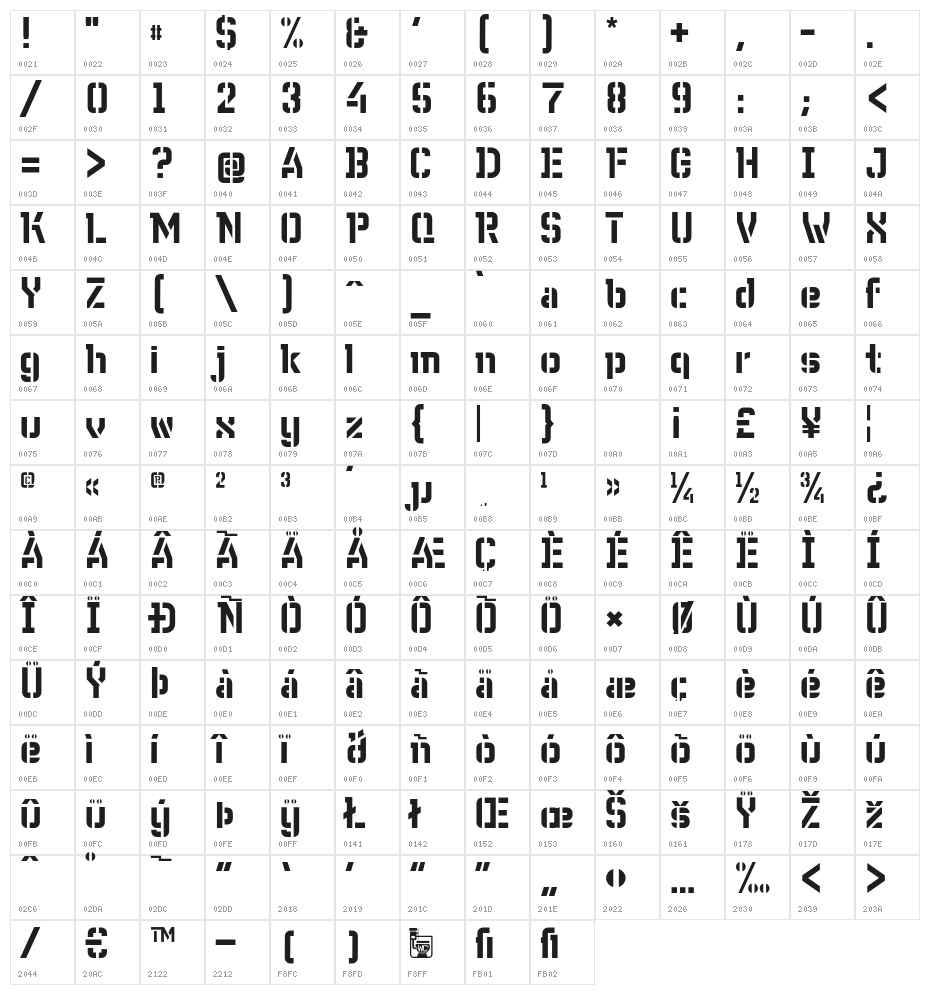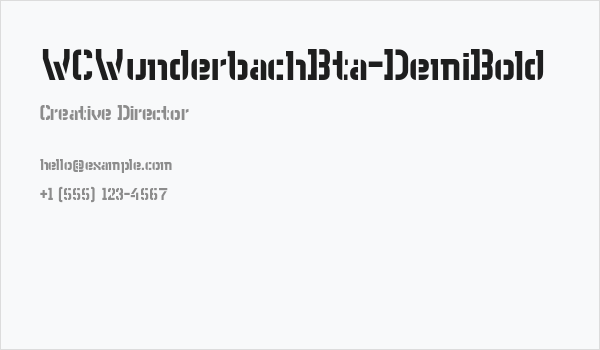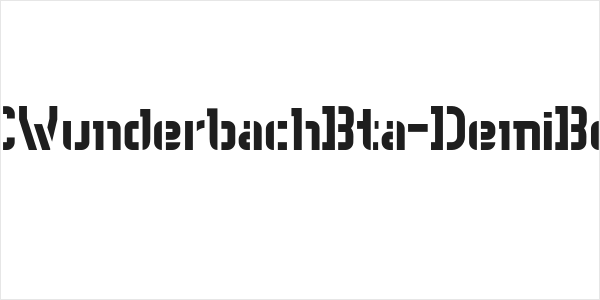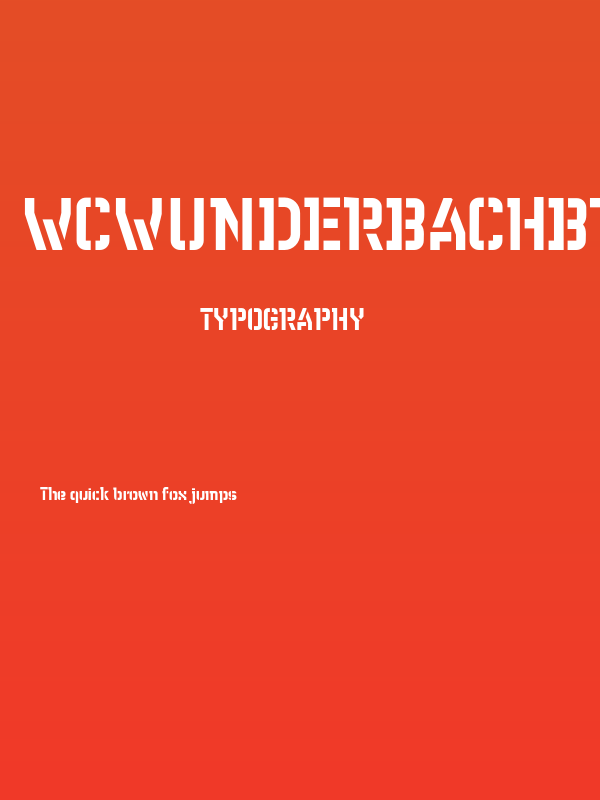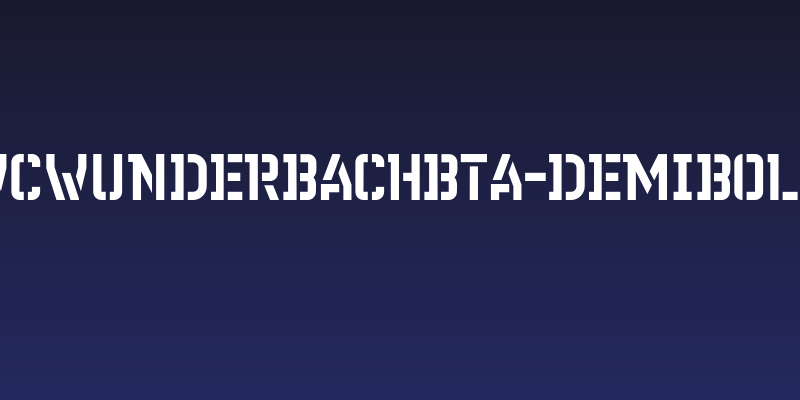
WCWunderbachBta-DemiBold Font
WCWunderbachBta-DemiBold Description
This font features a bold, geometric design with a strong, industrial feel. The characters are constructed with a stencil-like appearance, incorporating breaks in the strokes that add a unique, modern edge. The uppercase letters are particularly striking, with angular cuts and a blocky structure that commands attention. The lowercase letters maintain the same boldness, with a slightly more rounded approach, providing a nice contrast to the sharpness of the uppercase. Numbers and special characters follow the same design principles, ensuring consistency across the typeface. This font is ideal for projects that require a bold statement and a contemporary, edgy look.
Proposed ProjectsIdeal for branding, posters, headlines, and any design needing a bold, modern touch.